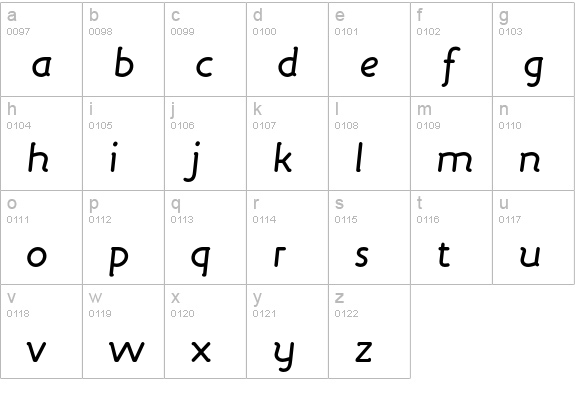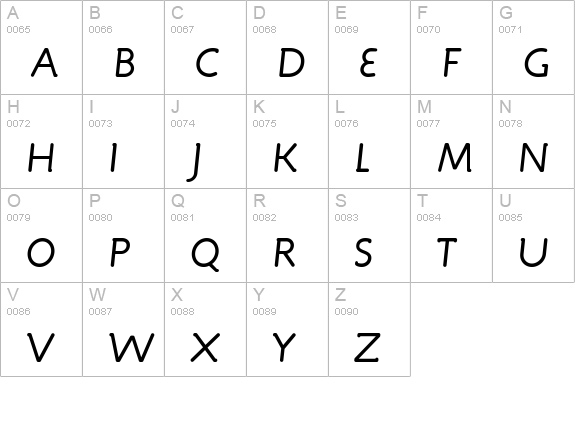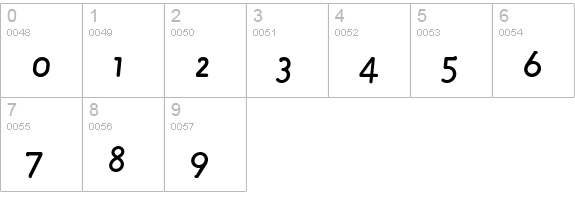
Engine-Italic is a distinctive, italic variant in the Engine typeface family \xE2\x80\x94 well suited to design and typography projects.
Engine-Italic is a sleek and modern font that exudes sophistication and elegance. With its italicized style, it brings a touch of flair to any design project. This versatile font is perfect for creating eye-catching headlines, elegant invitations, stylish logos, and more. Engine-Italic is not only visually appealing but also easy to read, making it ideal for both digital and print applications. Best of all, this font is free to download at FontsMarket.com, allowing you to add a touch of class to your projects without breaking the bank. Don't miss out on this stunning font that will elevate your designs to the next level.